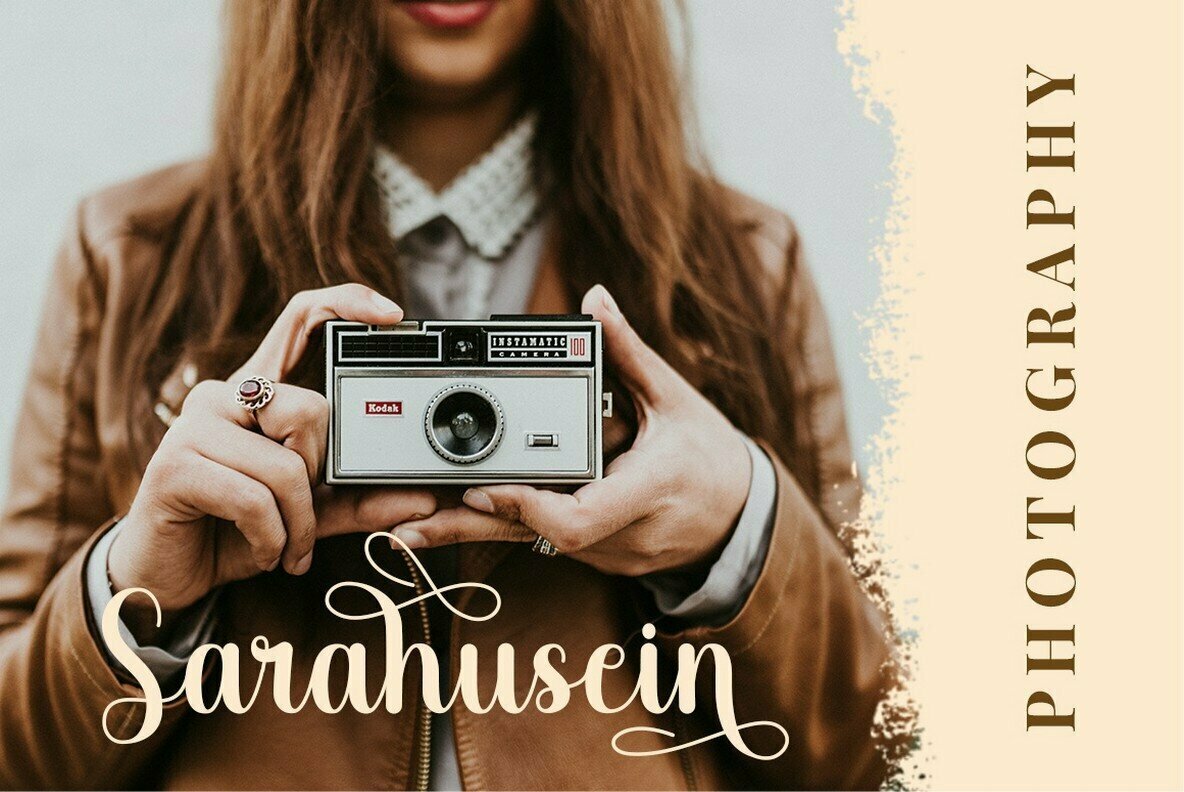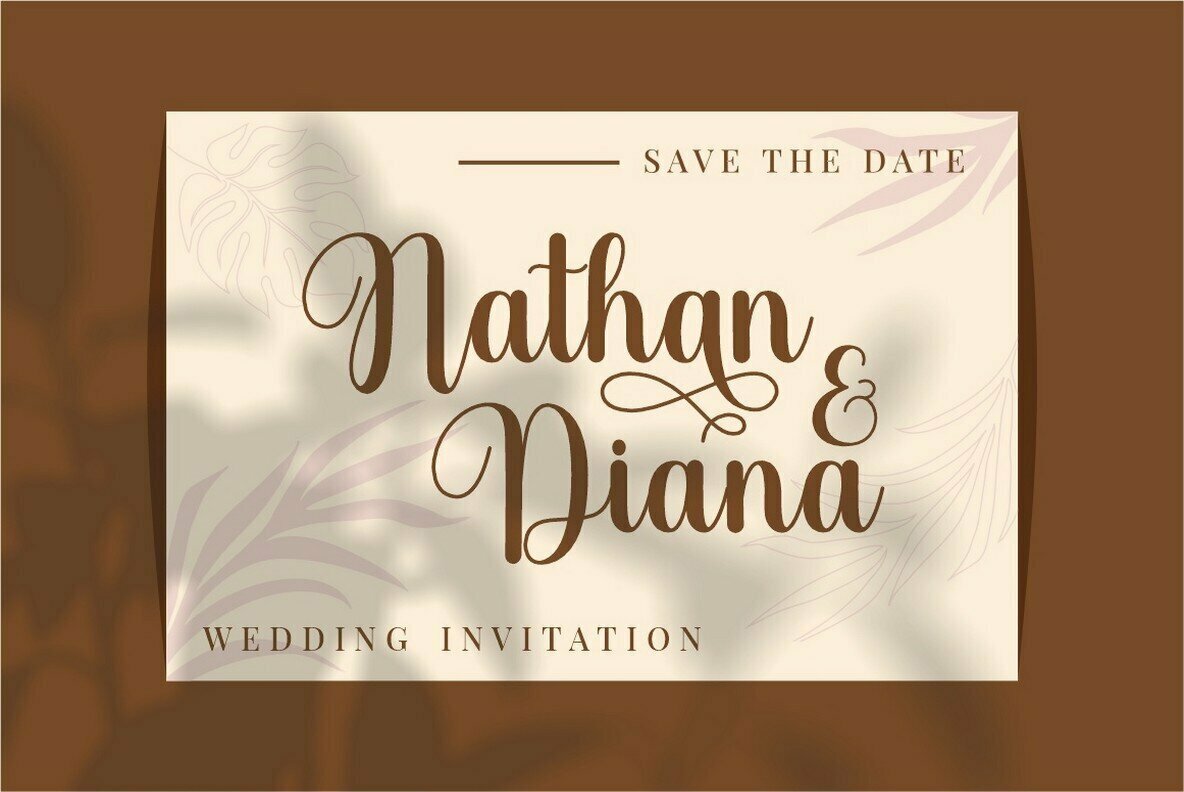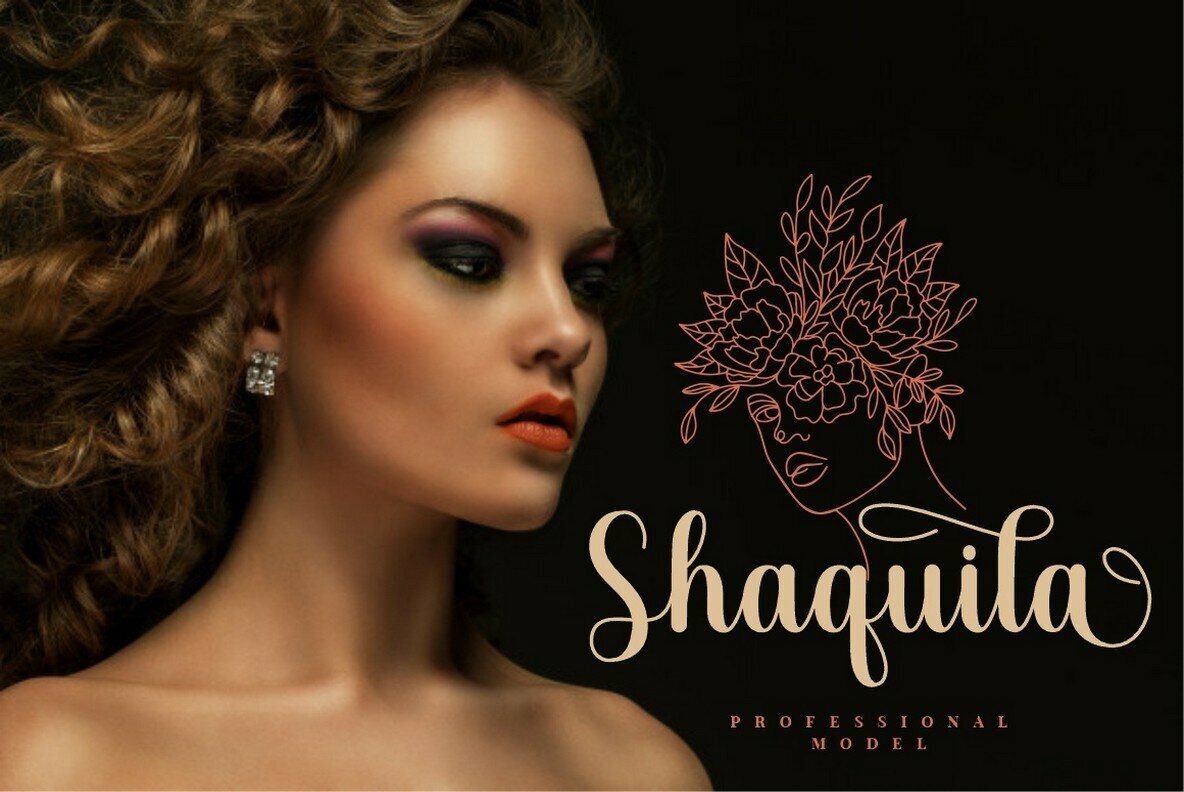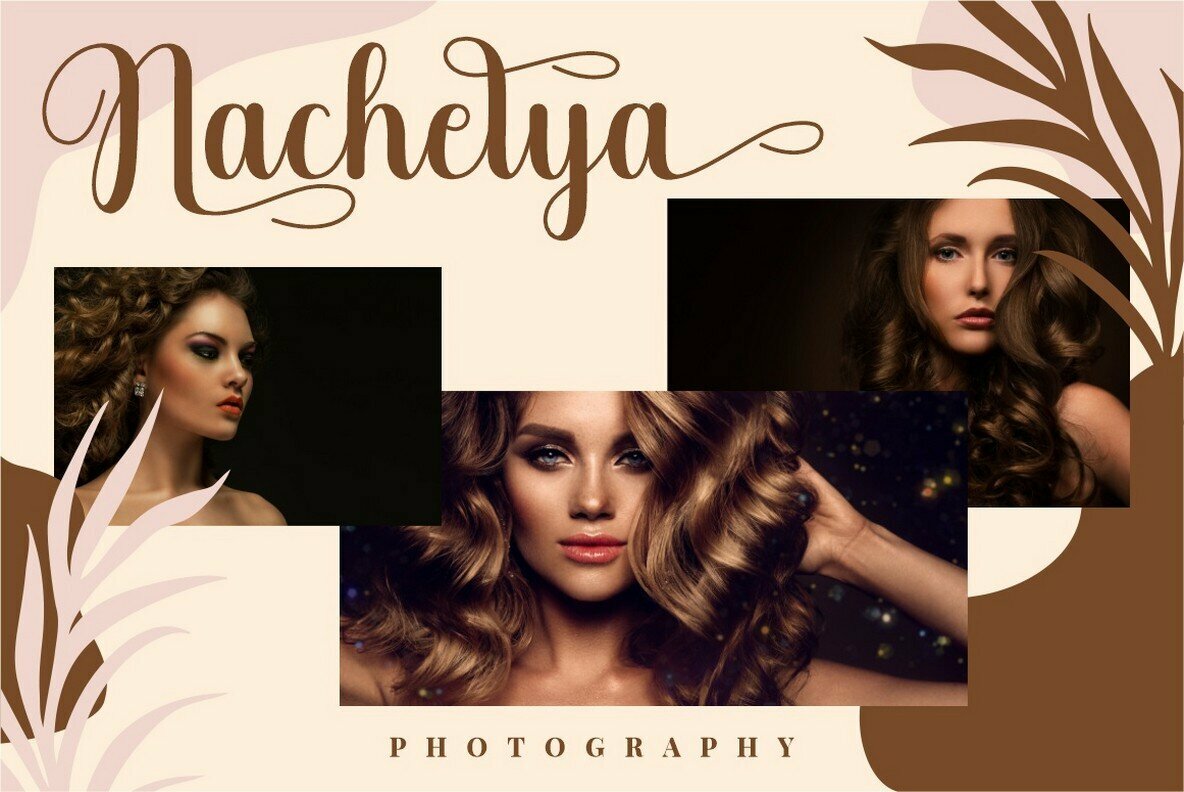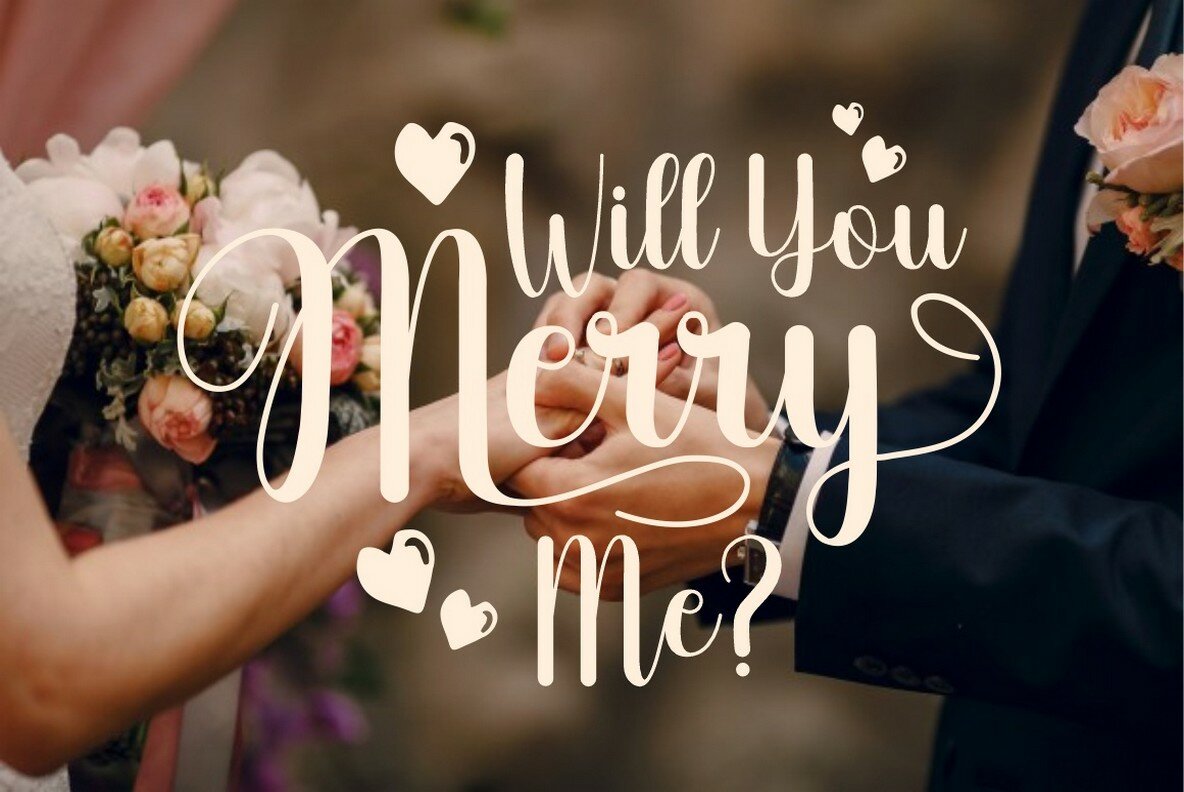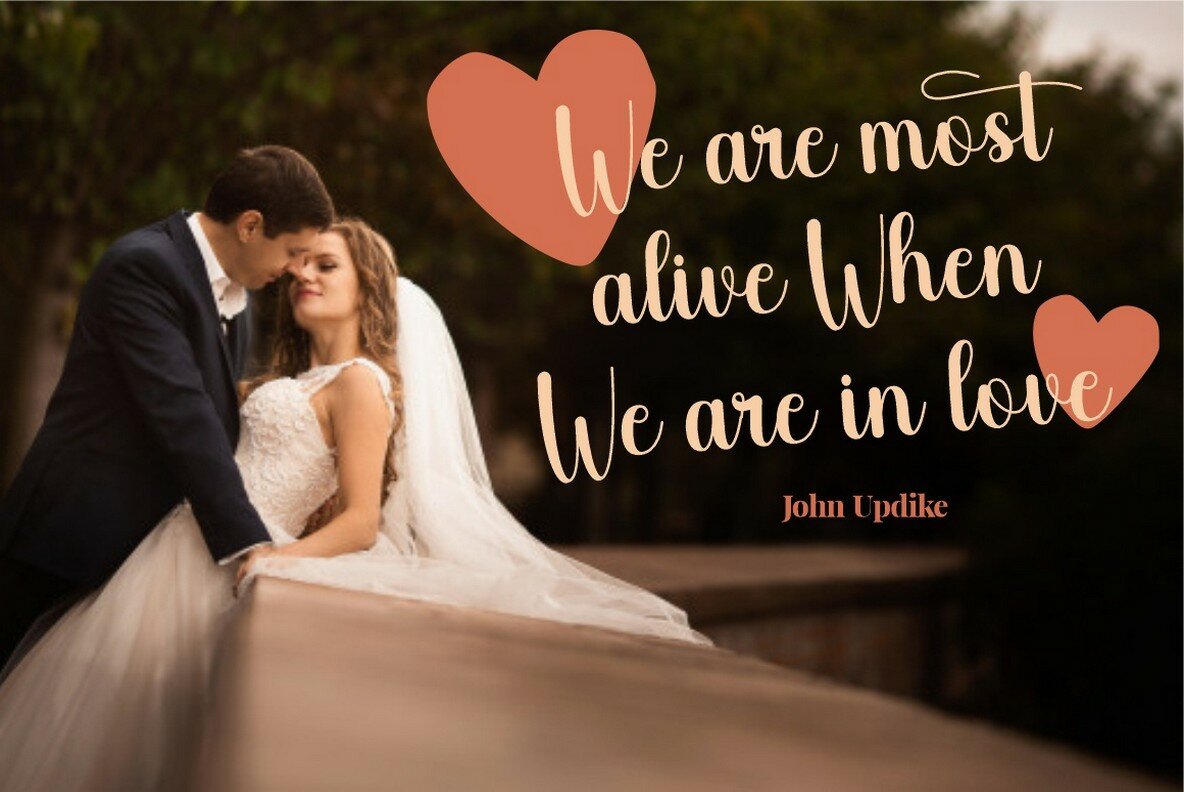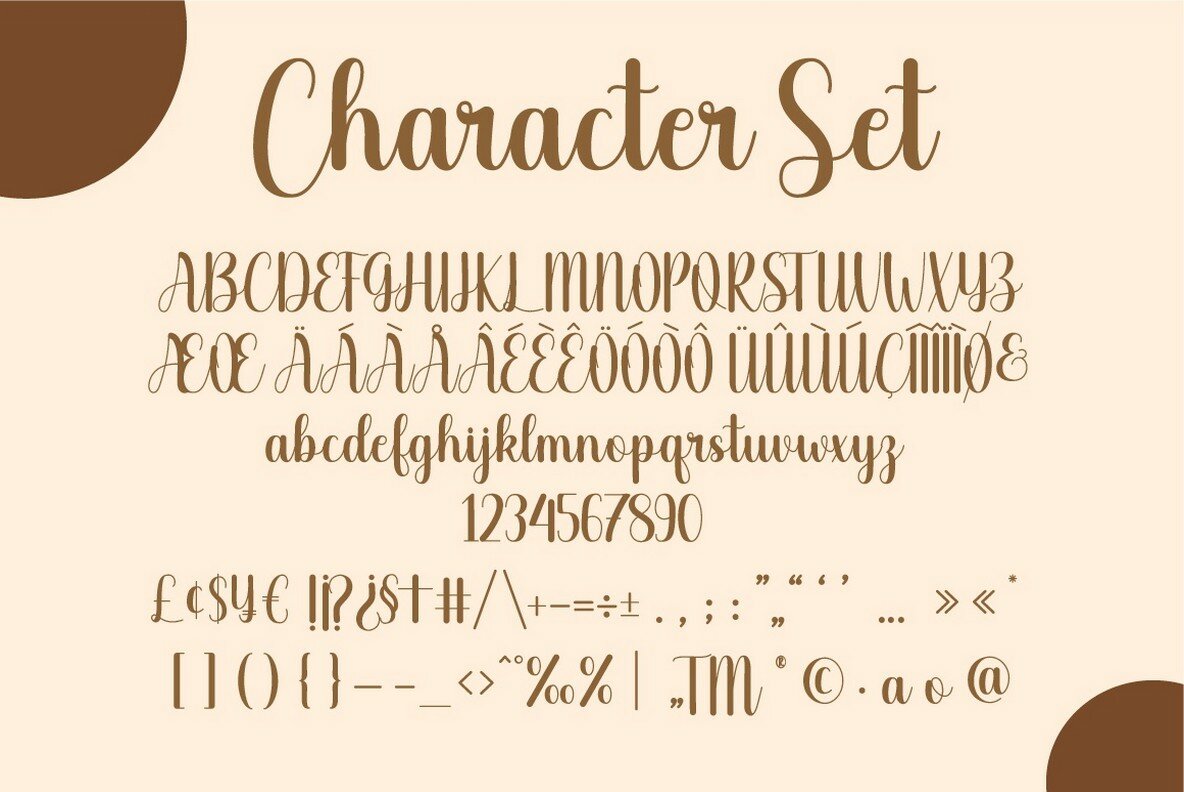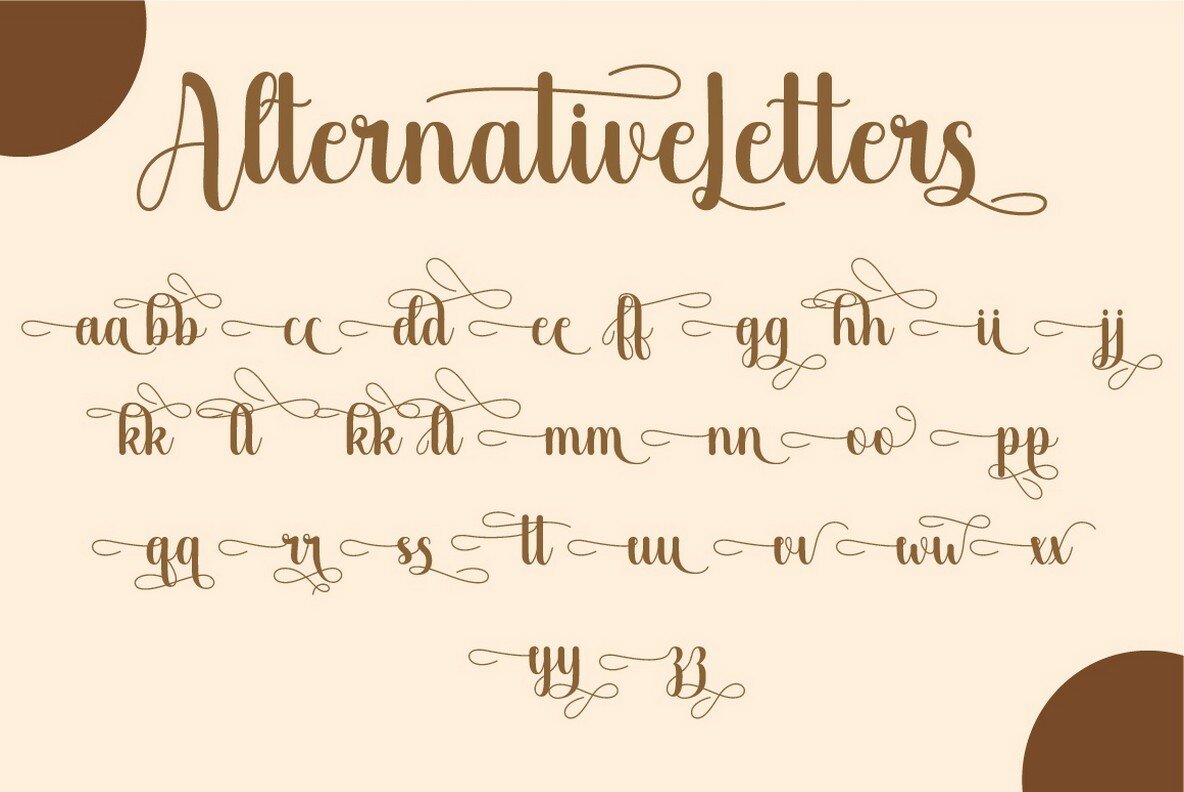
Hello Audrey Font
Hello Audrey
Hello Audrey offers a refined blend of elegance and contemporary allure, making it a perfect choice for special occasions and upscale projects. This feminine and slightly unruly script font is ideal for adding a luxurious touch to wedding events, anniversaries, and birthdays. Its versatility also extends to branding, where it can elevate logotypes, as well as a myriad of creative outputs like greeting cards and elegant logos. Hello Audrey isn't just limited to stationary and invites; it's an exquisite choice for posters, packaging, websites, and other projects in need of a handwritten, sophisticated touch.Hello Audrey: A Modern Script for Elegant Designs